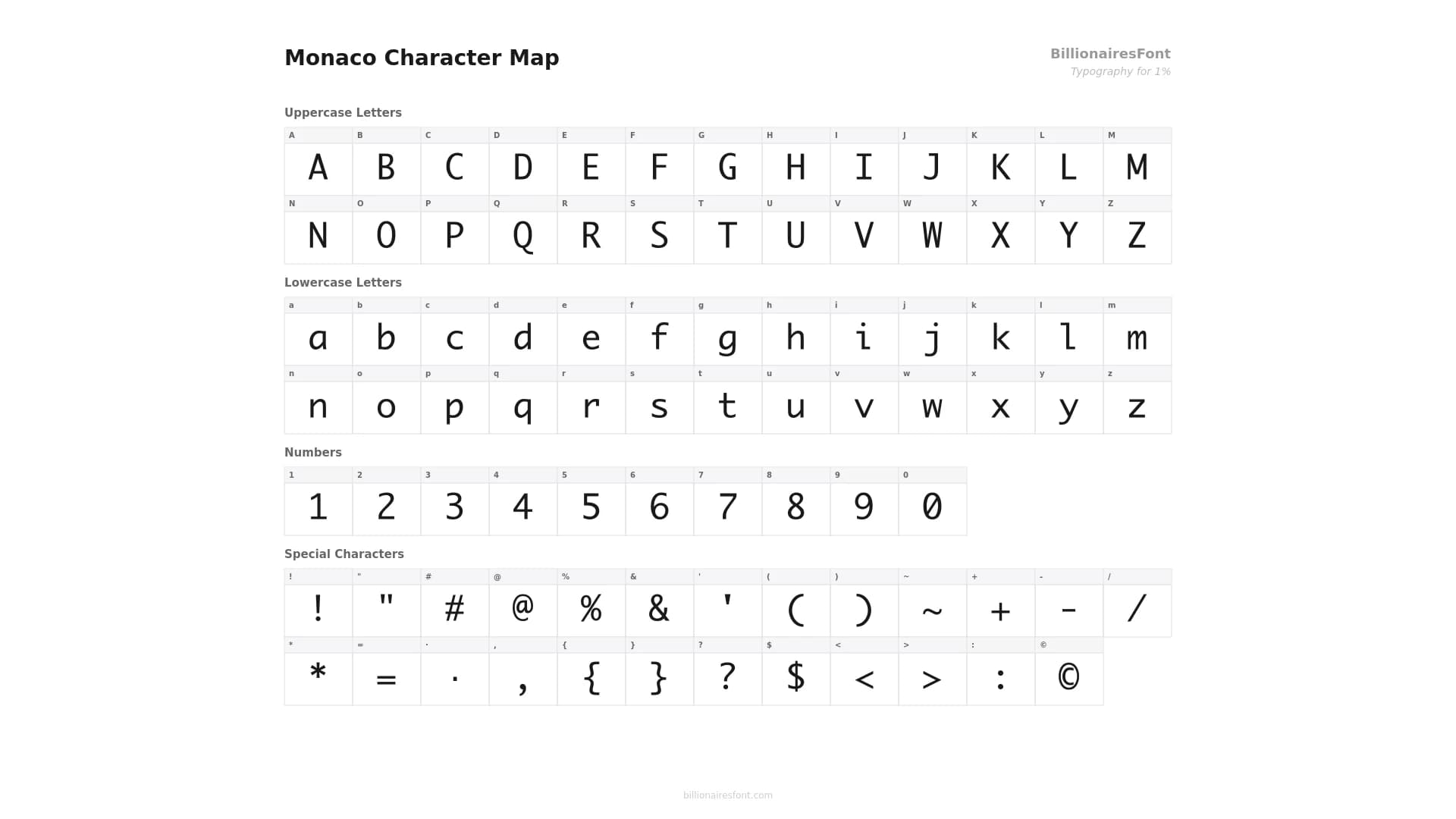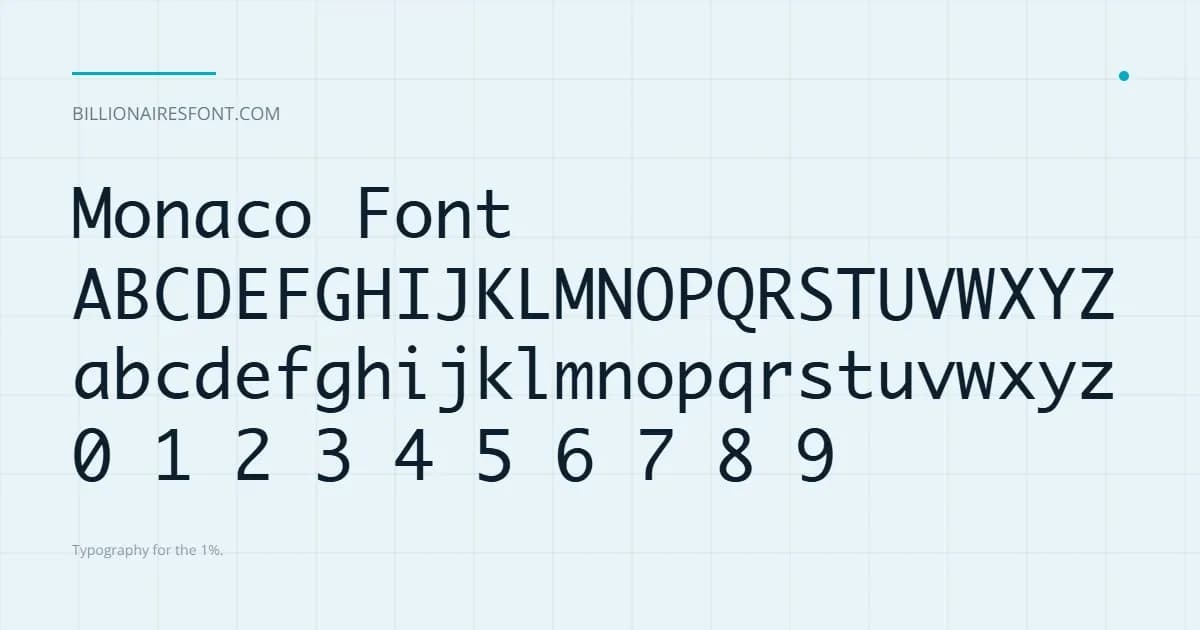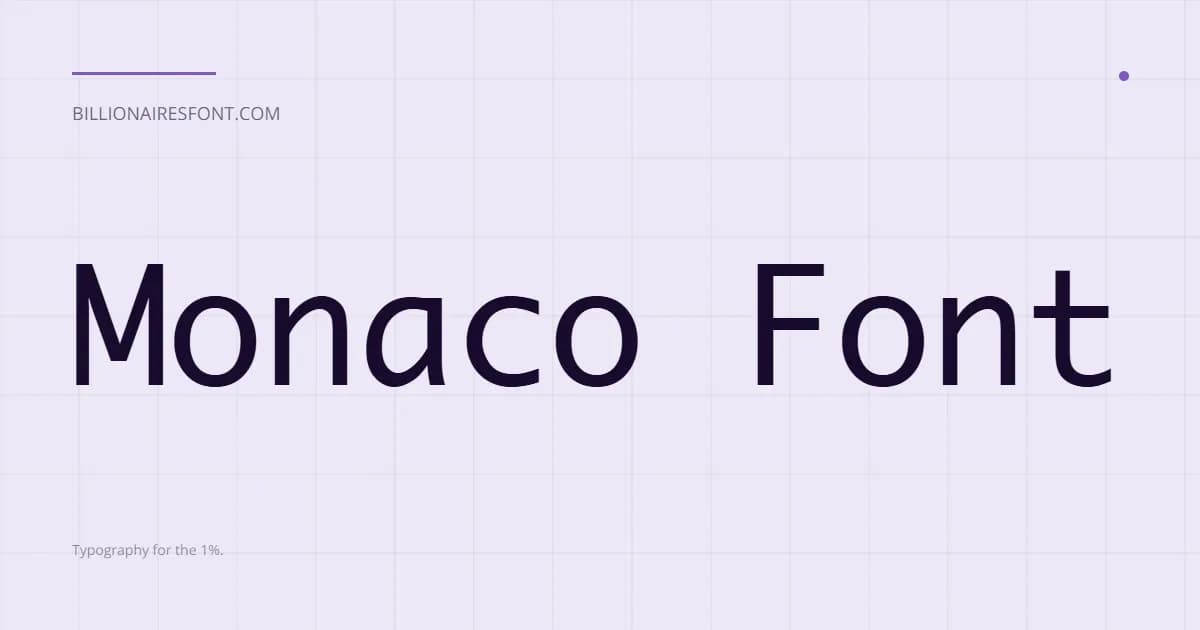
Monaco is a monospace sans-serif that has shipped with every Macintosh since 1984, making it one of the longest-running coding fonts in existence. Designed by Susan Kare, Kris Holmes, and Charles Bigelow, the font is built around clearly distinct letterforms — 0 and O, 1 and l and I are impossible to confuse — with a signature single-storey lowercase a and highly curved parentheses that set it apart from other monospace faces. The download includes a single weight in Regular with over 3,000 glyphs covering Latin, Greek, and Cyrillic scripts, available here as a free download for personal use in TTF, WOFF, and WOFF2 formats. It was the default terminal font on macOS until 2009, when Menlo took over. For monospace alternatives that are also free for commercial use, see Fira Code for ligature support or Roboto Mono for a multi-weight family in the monospace collection, or convert between formats using the Free Font Converter tool .